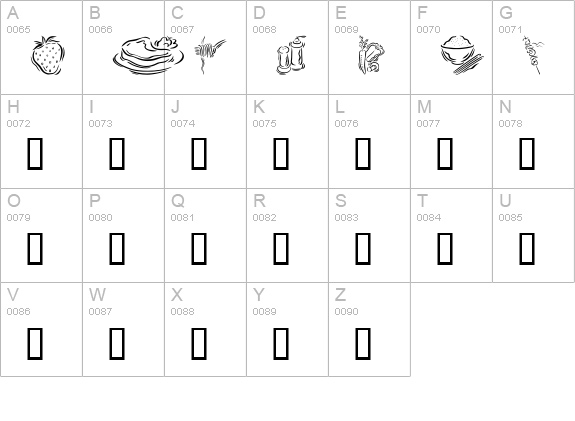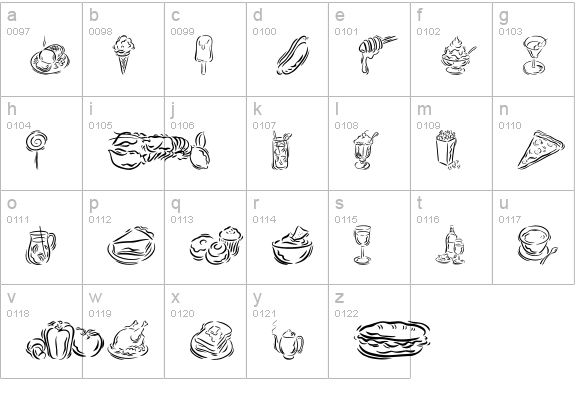
GE Stylized Foods Font Details
The GE Stylized Foods font is a modern and stylish typeface that adds a touch of sophistication to any design project. With its sleek lines and elegant curves, this font is perfect for creating eye-catching headlines, logo designs, and more. The unique and versatile design of GE Stylized Foods makes it a great choice for a wide range of projects, from branding to packaging and beyond. Best of all, GE Stylized Foods is available for free download at FontsMarket.com, making it easily accessible for designers and creatives looking to add a touch of flair to their work. Whether you're working on a personal project or a professional assignment, this font is sure to make a statement and elevate your design to the next level. Download GE Stylized Foods today and unleash your creativity with this stunning typeface.